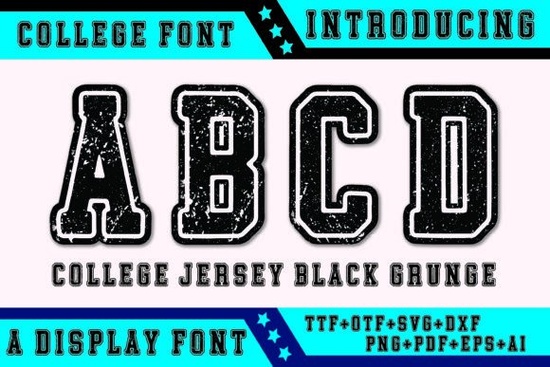
If you're working on a design that needs bold, athletic energy like team merch, school spirit gear, or event posters the College Jersey Black Grunge Font delivers exactly that. It’s not just another blocky typeface; it’s got grit, character, and a slightly worn-in look that mimics real vintage sports apparel. Whether you’re designing for print-on-demand T-shirts, custom banners, or even spirited wedding invites with a playful twist, this font adds instant personality without overwhelming your layout.
What makes this grunge-style display font stand out is its balance of structure and texture. The letters are built with strong outlines and a block-style foundation, giving them weight and presence. But the subtle roughness along the edges what gives it that “grunge” feel adds warmth and authenticity. That combination works especially well when you want something that feels both nostalgic and energetic.
When should you use this font?
This typeface shines in projects tied to competition, camaraderie, or celebration. Think:
- Sports team uniforms or fan gear
- School branding (yearbooks, pep rally posters, alumni events)
- Tournament flyers or scoreboard graphics
- Apparel designs for gyms, camps, or local leagues
- Even unconventional uses like birthday party invites with a “varsity” theme
Because it’s a display font, it’s best used for headlines, logos, or short phrases not body text. Pair it with a clean sans-serif (like Helvetica or Montserrat) for contrast and readability in supporting copy.
How does it compare to other display fonts?
If you’ve browsed Creative Fabrica’s collection, you might already know fonts like Preppy Chic, which leans polished and collegiate but without the distressed edge. Or Old Game, which channels retro arcade vibes rather than stadium energy. For something softer, Sugar Cloud offers bubbly, rounded letterforms great for kids’ designs but not for rugged team spirit.
Meanwhile, Slime Drip goes full playful with gooey, exaggerated drips, while Preppy Sweet blends classic preppy aesthetics with delicate curves. Each has its place, but if your project calls for boldness with a tactile, hand-worn quality, the College Jersey Black Grunge Font fills that niche perfectly.
Tips for using it effectively
Because of its textured nature, avoid using this font at very small sizes it can become muddy or hard to read. Stick to headlines, logos, or large-format prints where the details have room to breathe. Also, consider your background: it pairs best with solid colors or simple gradients. Busy patterns can clash with its already dynamic surface.
If you’re creating layered designs (like mockups for POD products), try adding a subtle drop shadow or outline in a contrasting color to make the text pop especially on dark fabrics or photos. And don’t overuse it. One strong headline in College Jersey Black Grunge often carries more impact than multiple elements competing for attention.
Who is this font really for?
It’s ideal for:
- Print-on-demand sellers creating team-themed apparel or accessories
- Small businesses running sports camps, gyms, or school-related services
- Graphic designers building identity systems for athletic brands
- Crafters making vinyl decals, iron-on transfers, or sublimation prints
- Hobbyists designing personal projects like reunion shirts or game-day decor
Quick checklist before you hit “export”
- Is the font size large enough to show texture clearly? (Aim for 36pt+)
- Does the background give the text enough contrast?
- Have you paired it with a complementary, readable secondary font?
- Have you tested how it looks printed or on a mockup not just on screen?
With those details covered, the College Jersey Black Grunge Font can bring authentic, high-energy appeal to your next creative project without trying too hard.